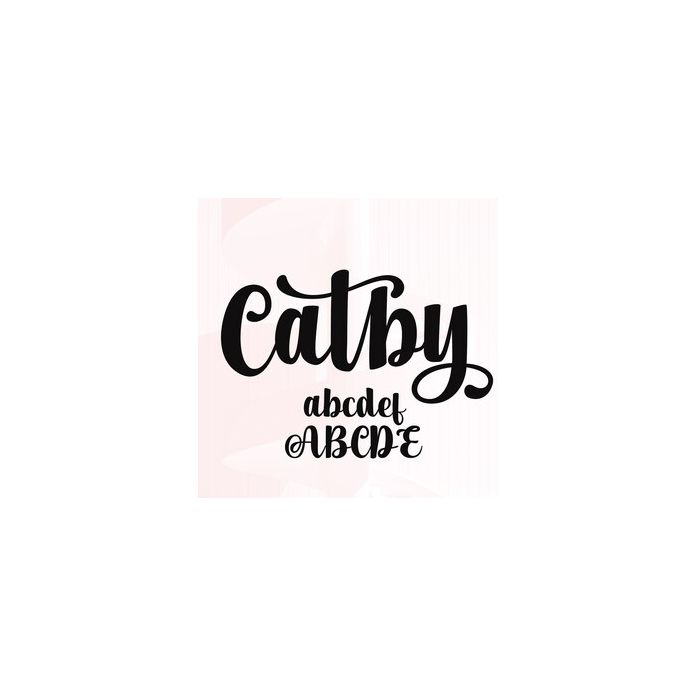
Catby handwritten font that stands for Harmony. The model is very beautiful in natural script, so it is very suitable for your classy design collection. You can modify it according to your taste!